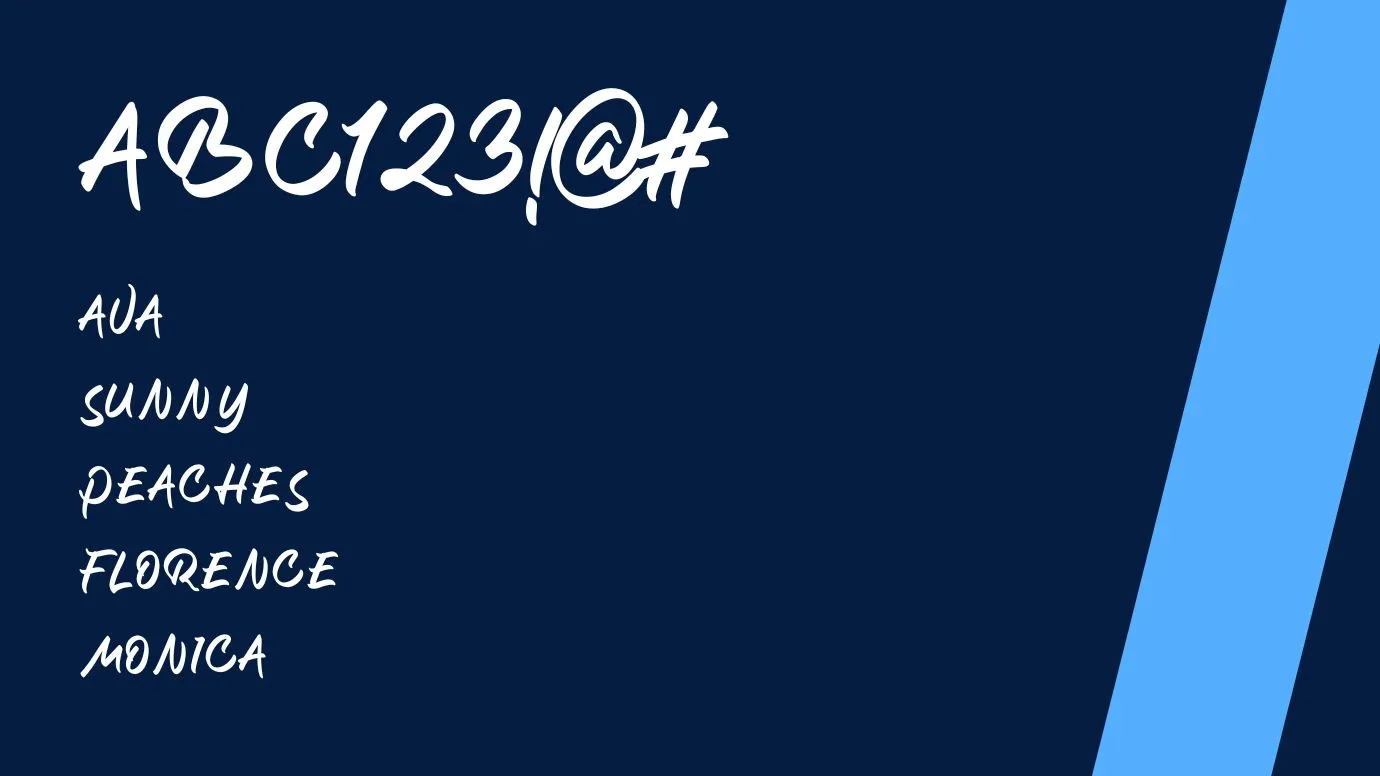
Maira Font is a beautiful and versatile brush font. This stunning font has a stylish and wonderful texture look appearance for visitors. Famous Prestige Type Studio designed this font with elegance.
You can use it for gorgeous wedding invitation cards, beautiful stationary art, social media posts, and cute greeting cards. Beauty can change the perspective of the typeface and it is a right choice to represent this in your font.
It is a beautiful and creative font with a creative touch on every single curve. Maira font has a neat and clean texture which is easy to read.
This font has a ton of alternate characters and bonus swash making your font perfect for any project for personal usage. Also can be used in logos, t-shirts, apparel, branding, invitation cards, etc.
The style of the font is astonishing that gives you a natural brush feeling to it. This typeface contains all sets of characters uppercase, lowercase letters, numbers, swashes, ligatures, numerical as well as punctuation marks.
The font is based on proportionally spaced letters that have a contrasting effect on the entire typeface. You can use this font for personal projects, however, if you wish to use it for commercial ventures then you have to seek permission.
It will make your designs stunning and more attention-grabbing as it is a very professional font.
The typeface has an amazing online generator tool. It can be paired easily with gient font. It is a brush typeface and both show a lot of resemblance and can be carried forward in lots of private projects.
The brush-type lettering looks are quite amazing and give the entire font a pleasing and satisfying feeling to it.
Creator of Maira Font
This Font is designed by the famous Prestige Type Studio. Maira Font is an amazing and creative font.
View of Maira Font
Maira Font Details
| Name | Maira Font |
| Style | Brush |
| Designer | Prestige Type Studio |
What is Maira typeface?
It is a beautiful and versatile brush font. This stunning font has a stylish and wonderful texture look appearance for visitors.
Who designed Maira Font?
Prestige Type Studio created the typeface. It has outstanding texture,
Where can we use Maira Font?
Gorgeous wedding invitations, beautiful stationary art, social and cute greeting cards, etc.
How versatile is Maira texture?
It is a very versatile typeface. Usually utilized in a variety of applications such as web designing and graphic designing etc.